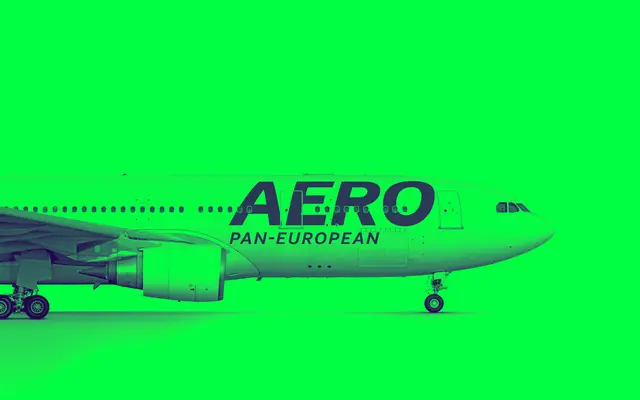
Aeropa PE
A multilingual humanist sans from Rosetta, covering Latin, Greek and Cyrillic, with six weights and matching italics suited to transport and institutional publications.
Designed for European institutional and logistics contexts, the family spans Extralight to Extrabold with italic companions across all weights, and is available as a variable font. Sample texts in Greek, Latin and Cyrillic demonstrate broad pan-European coverage. Distinctive details include a single-storey 'a', double-storey 'g', square dots and seriffed numeral '1', giving the design character within an otherwise functional register.
The sample texts, single-storey 'a', double-storey 'g', and square dots point to a humanist sans with geometric inflections, designed for institutional and informational contexts across multiple scripts.